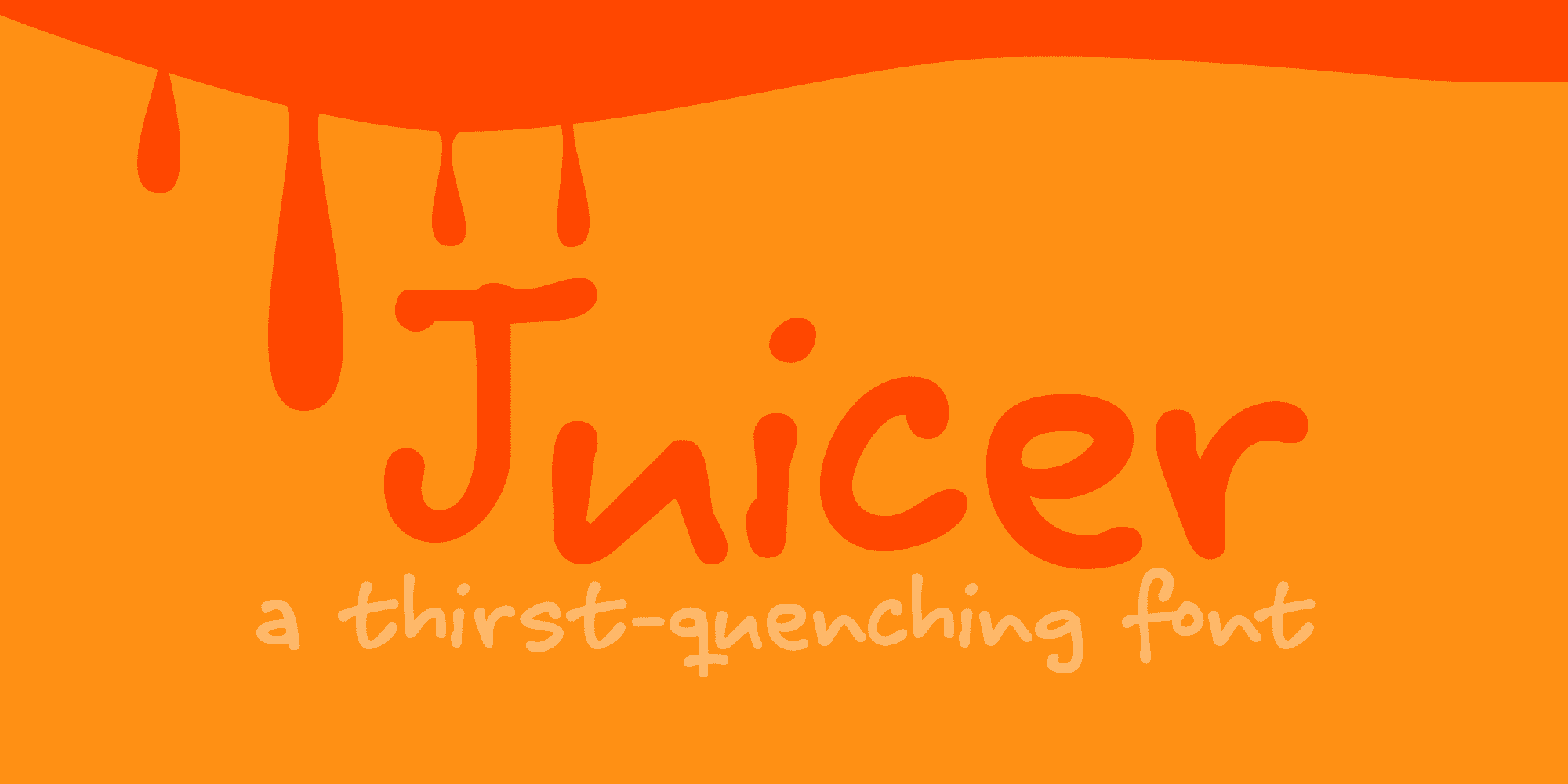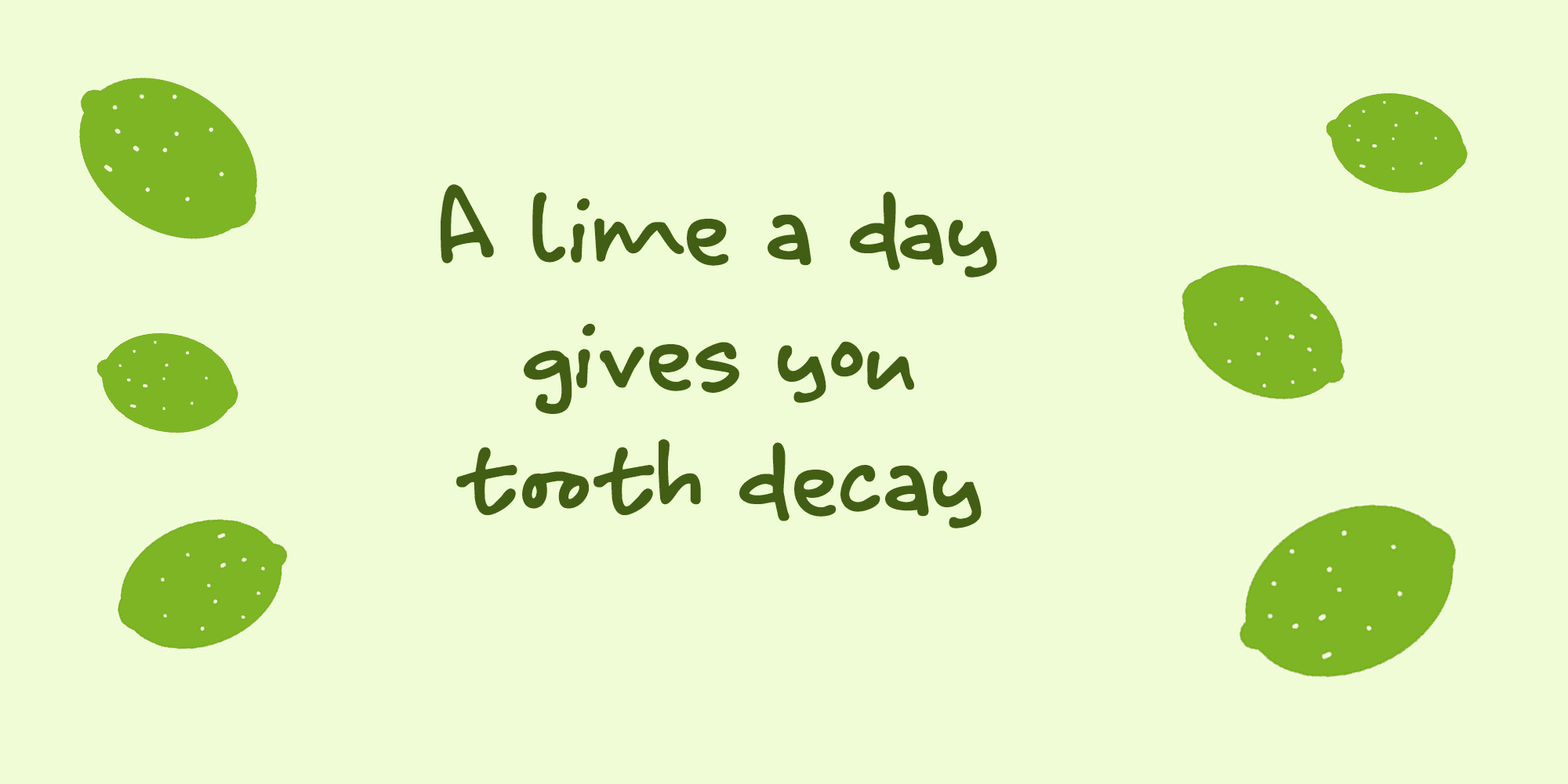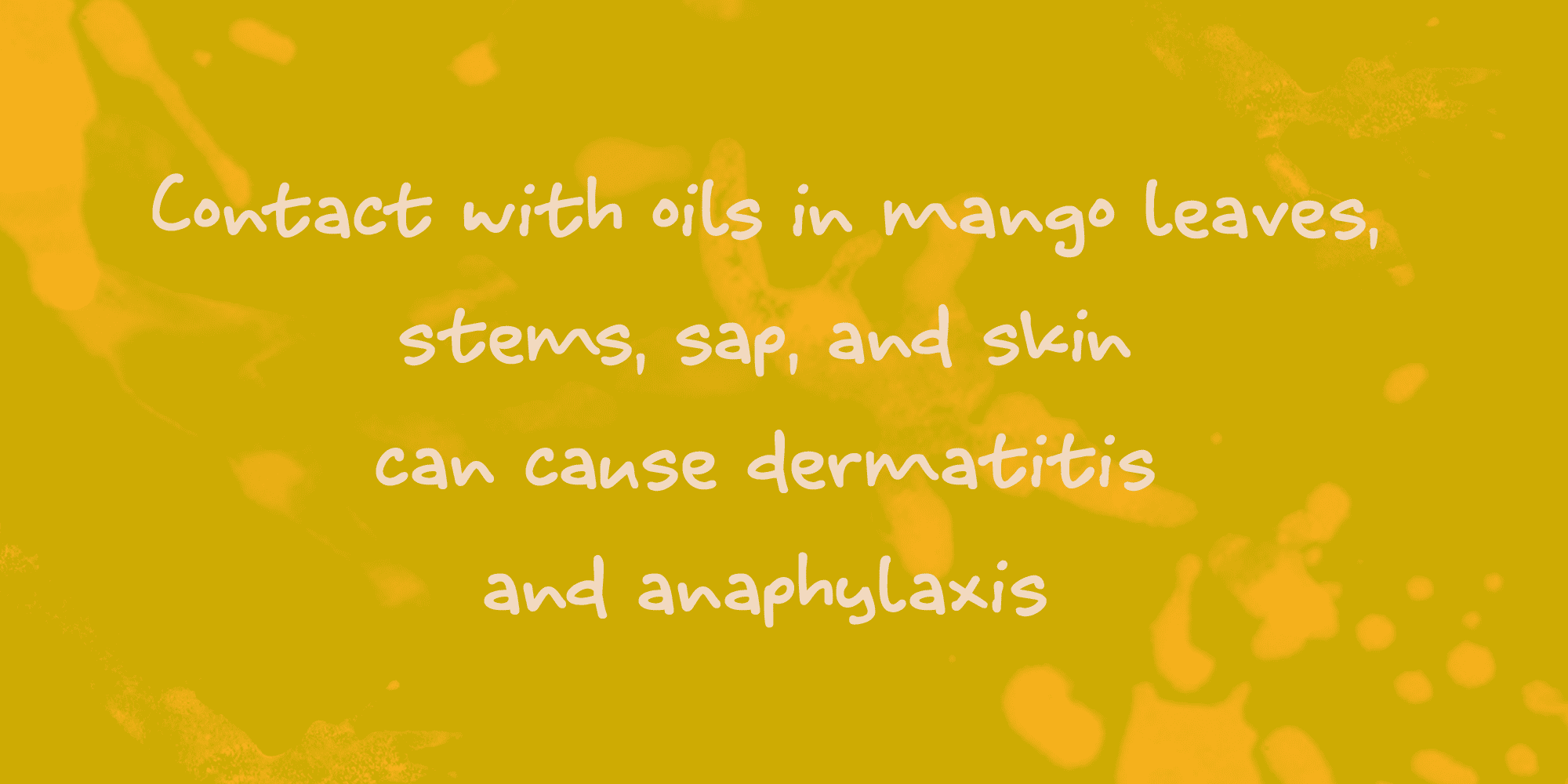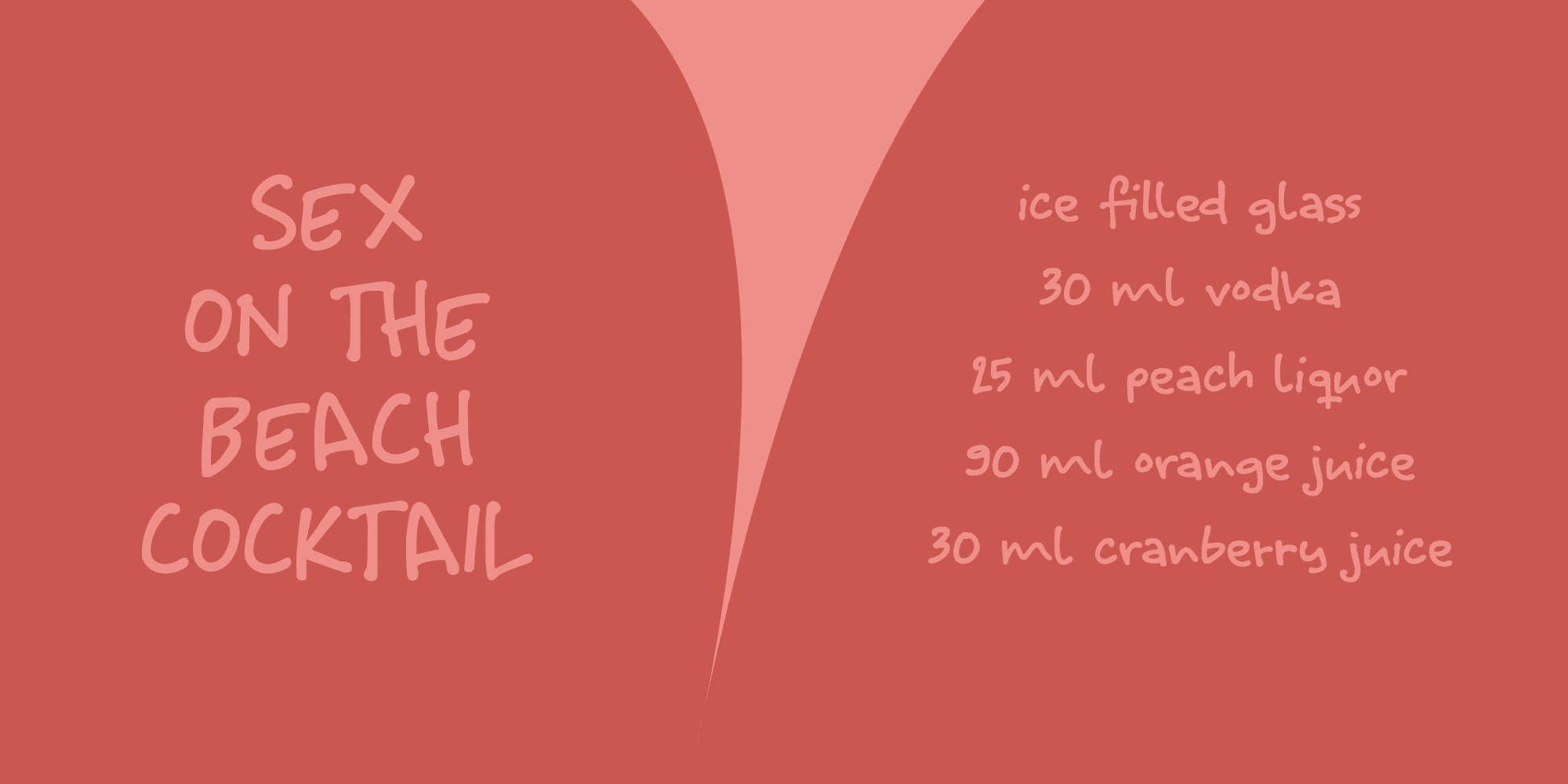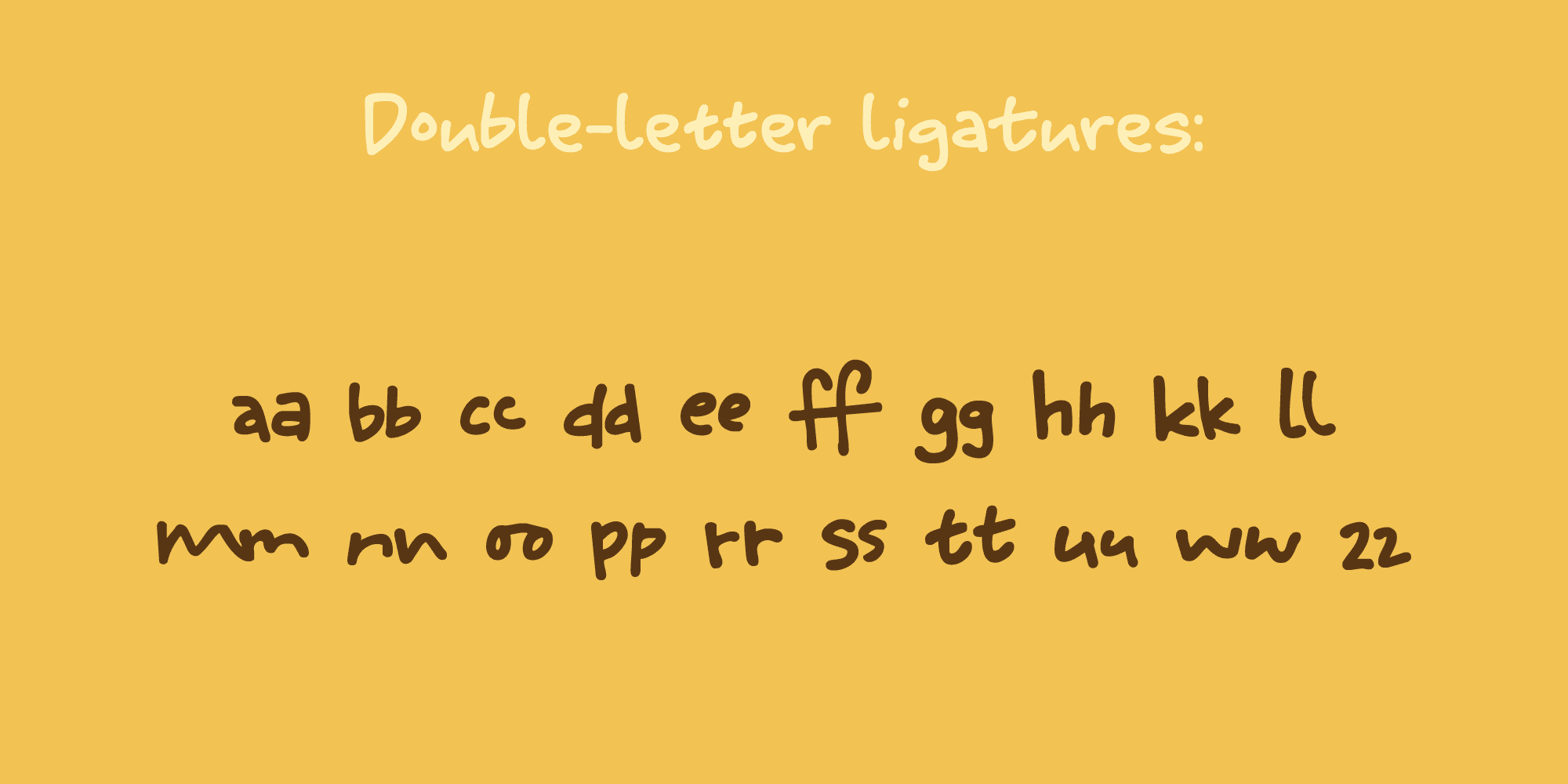
Juicer Family (2 fonts)
This font is called Juicer. It was not named after our manual juicer, or any juicer in particular. It was just a word that seemed to fit the font nicely. Juicer font is a handwritten, script-ish kinda font that comes in two great styles and contains a set of double letter ligatures.